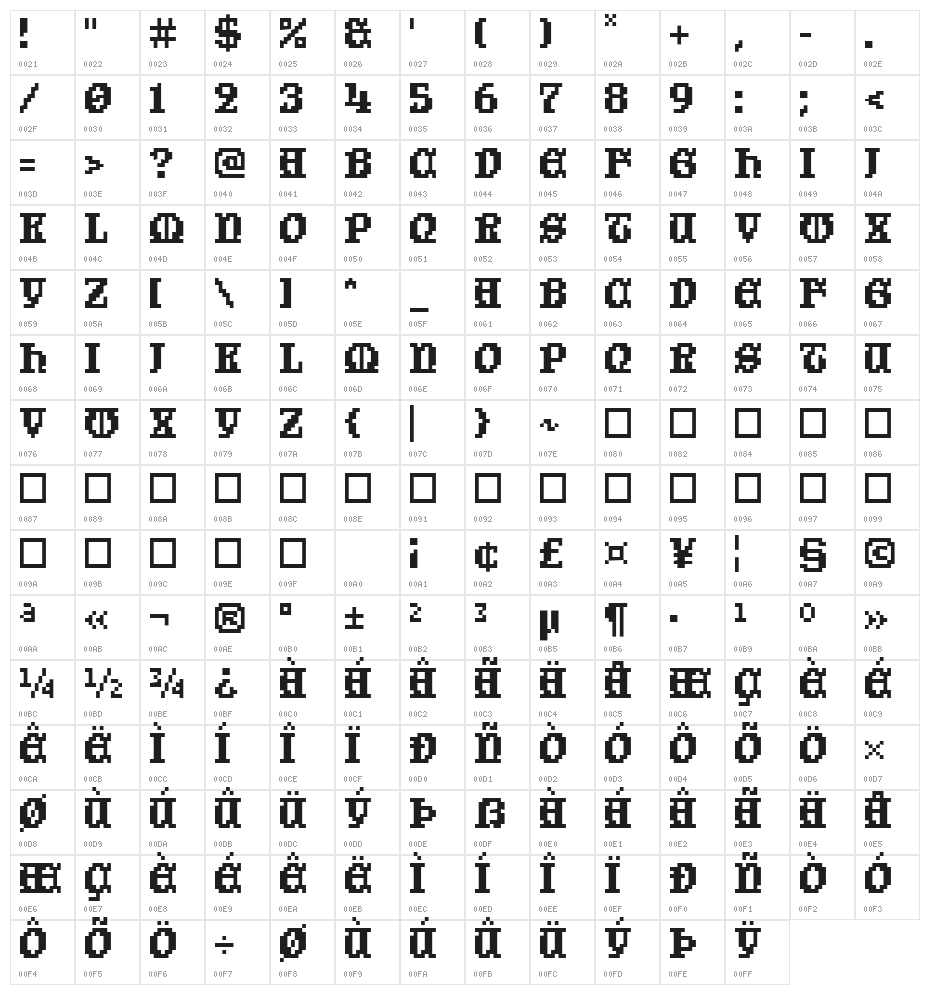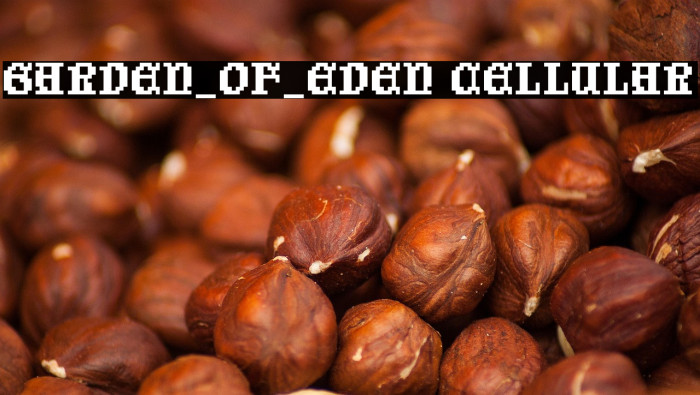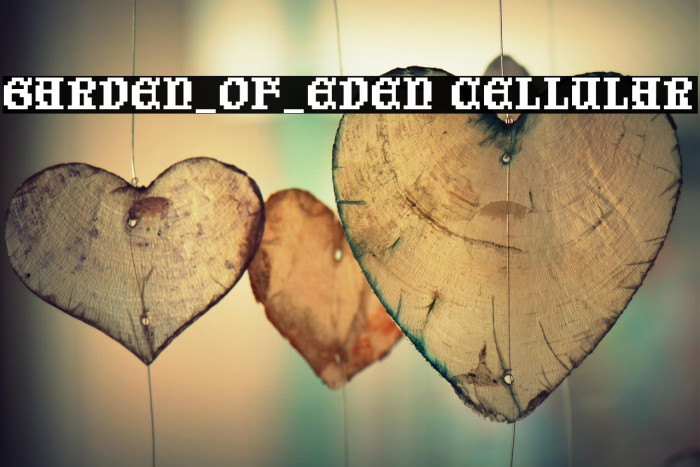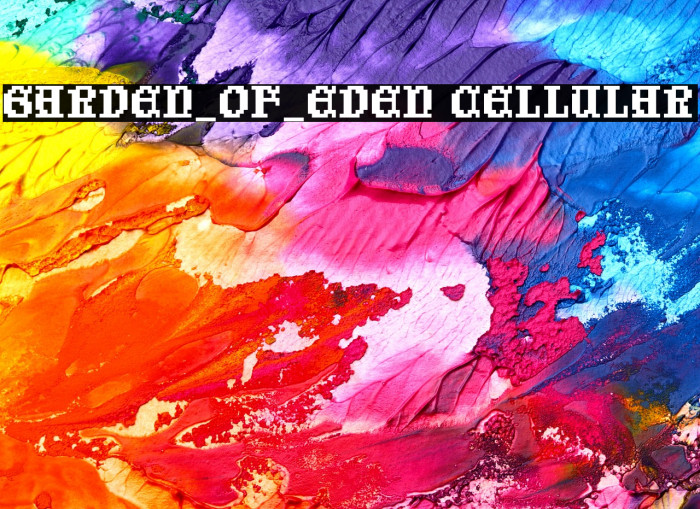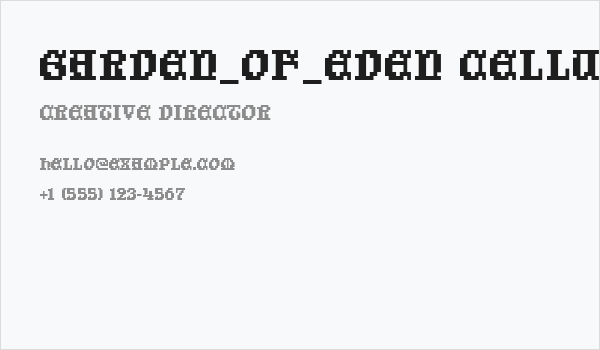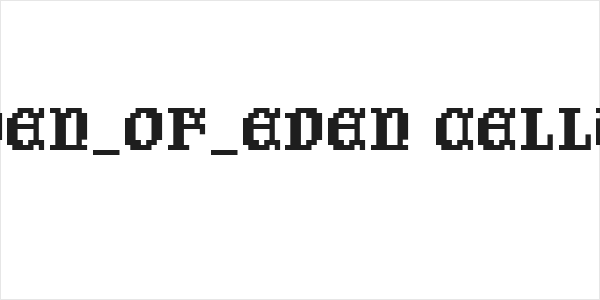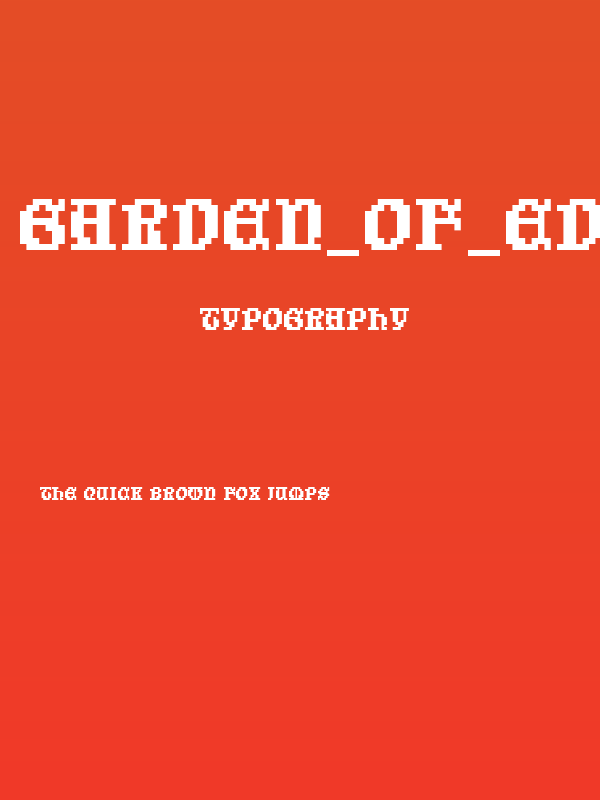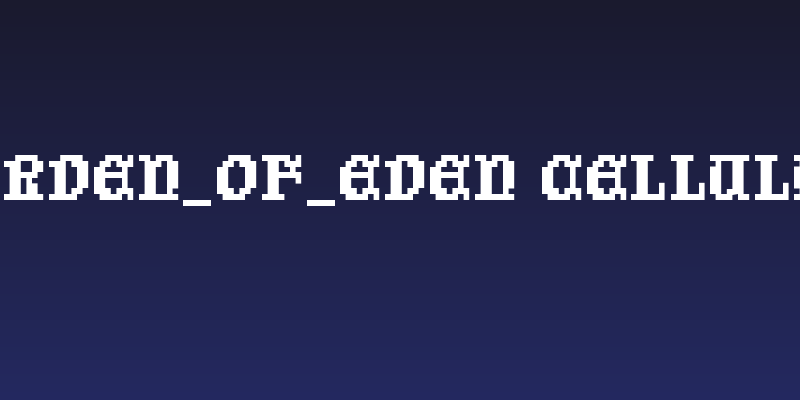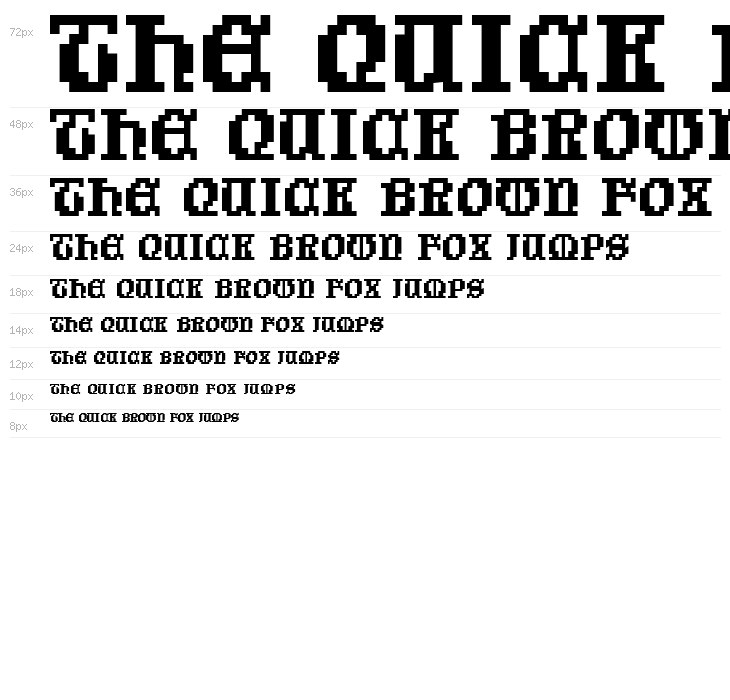
Garden_of_Eden Cellular Font
Garden_of_Eden Cellular Description
This font features a bold, pixelated style reminiscent of early digital or video game typography. Each character is constructed with a blocky, grid-like appearance, giving it a distinctly retro and digital aesthetic. The uppercase and lowercase letters maintain a consistent height, contributing to a uniform look across the typeface. Numbers and special characters follow the same pixelated design, ensuring a cohesive visual experience. The font's geometric structure and sharp edges make it highly legible, even at smaller sizes, while its unique style adds a playful and nostalgic touch to any design.
| Overall Style | Retro, Digital |
| Proposed Projects | Ideal for video game design, retro-themed posters, digital art projects, and any creative work seeking a nostalgic or playful vibe. |